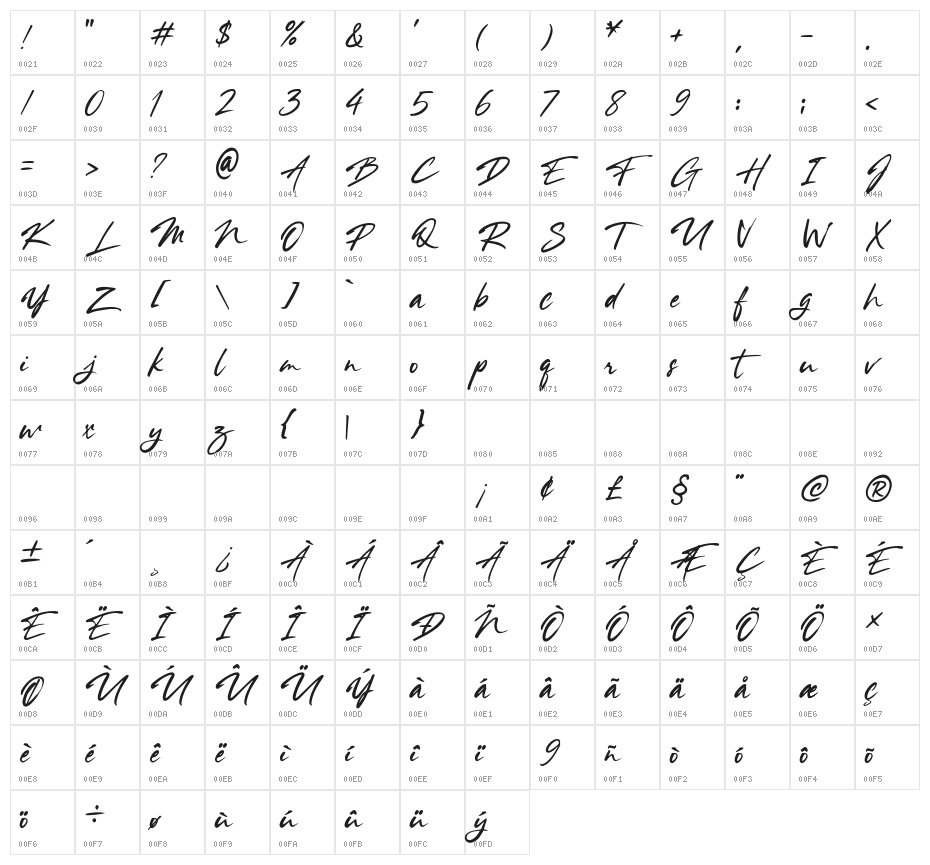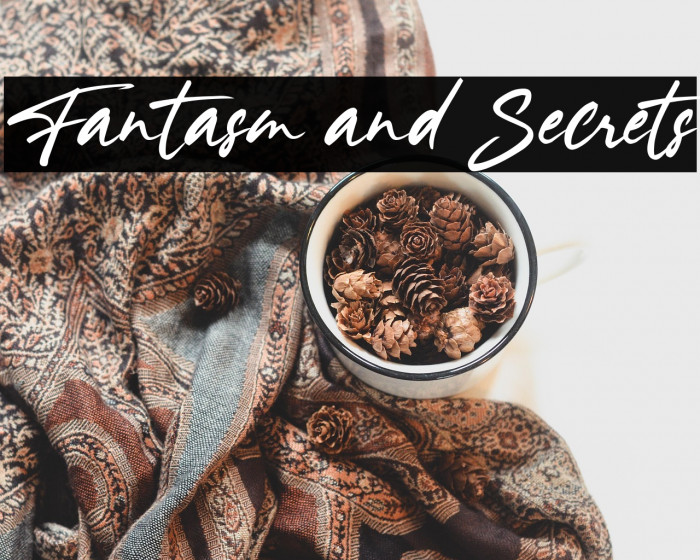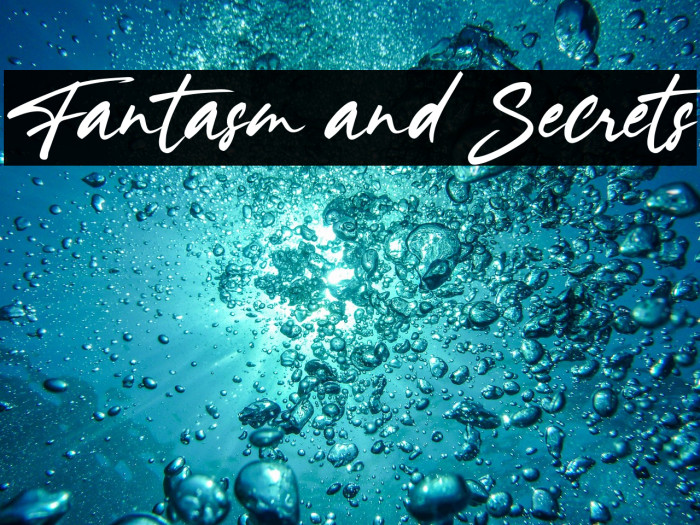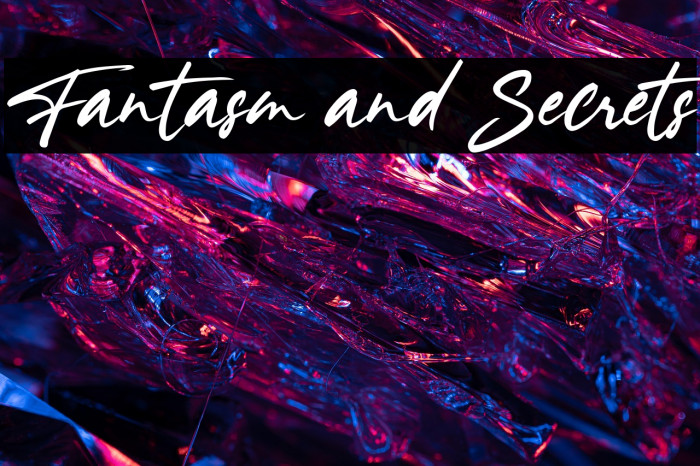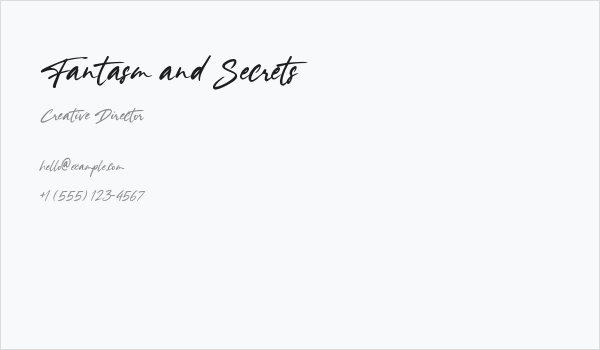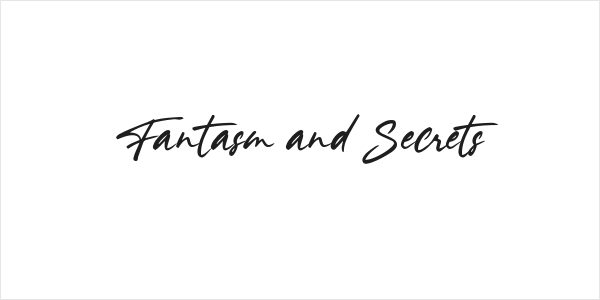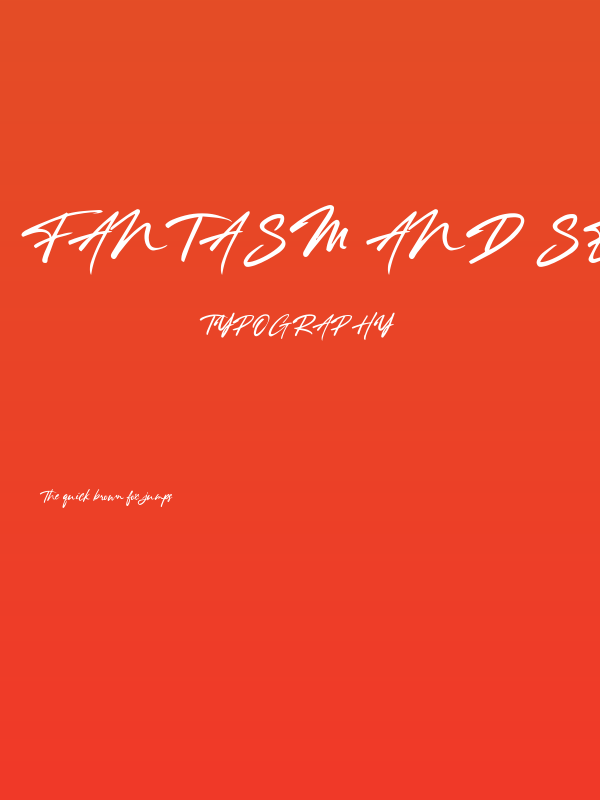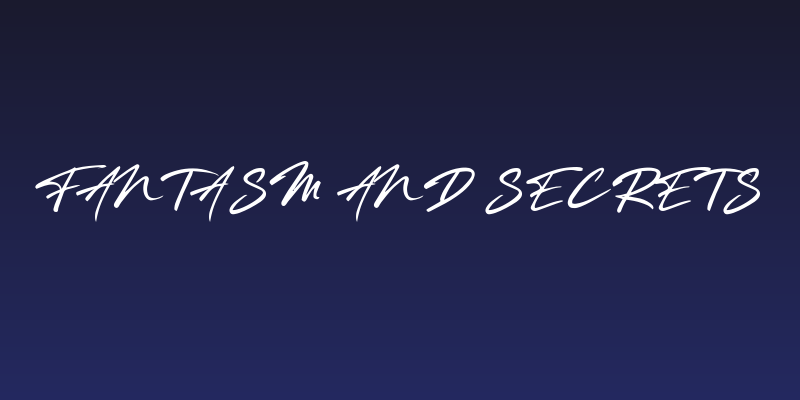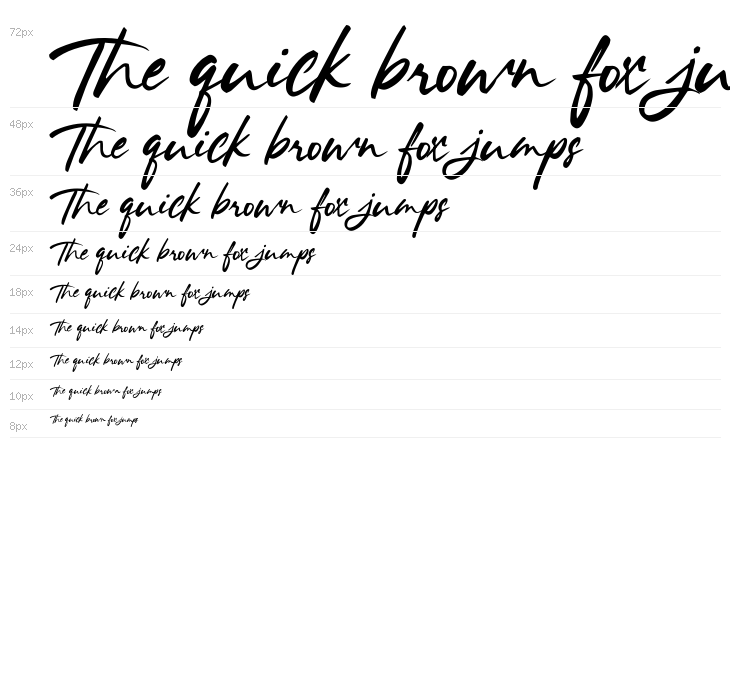
Fantasm and Secrets Font
Fantasm and Secrets Description
A dynamic and expressive handwritten script font with a casual and flowing style, featuring connected letters and varying stroke widths.
| Use Case | Logos, Headlines, Personal notes |
| Proposed Projects | Greeting cards, invitations, personal branding. |